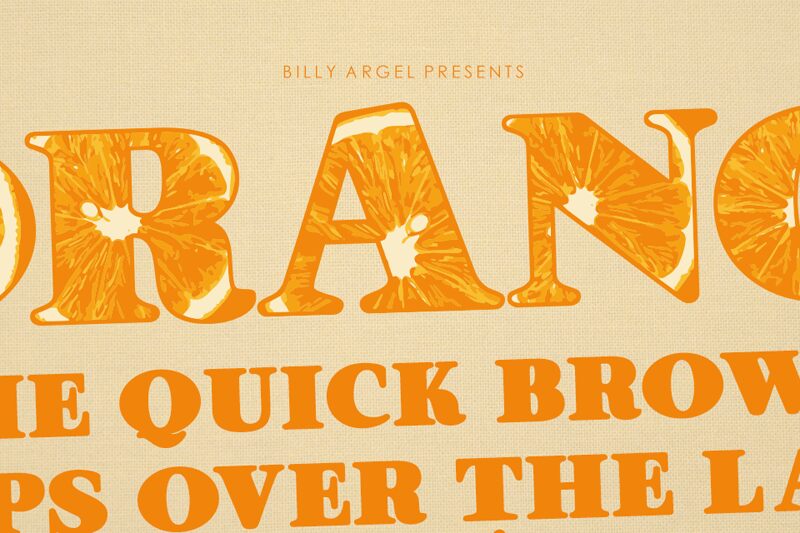
Introducing ORANGES Bold, a unique serif font from designer Billy Argel. This versatile font is perfect for projects that require an extra emphasis on clarity and impact. From logos to headlines, ORANGES Bold will add a distinctive and stylish touch to your designs. Make a bold statement with this wide-bodied font that's sure to stand out!
Color font SVG.